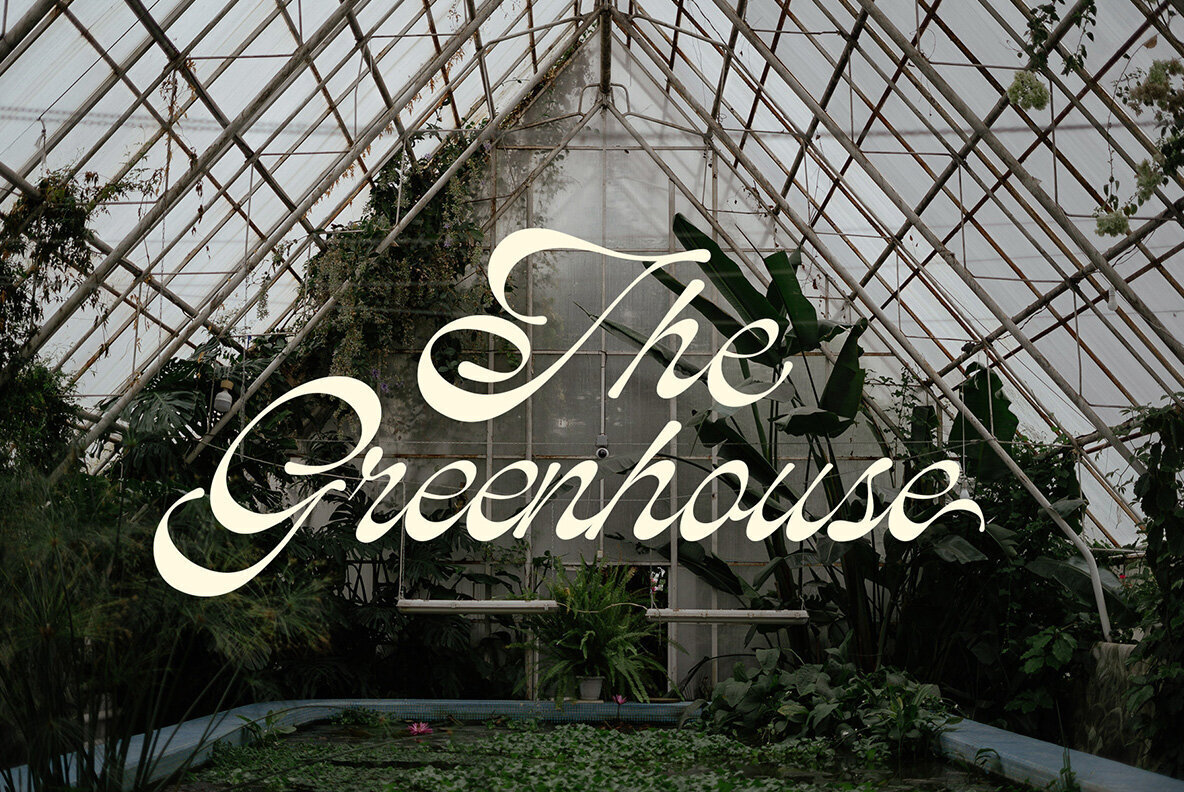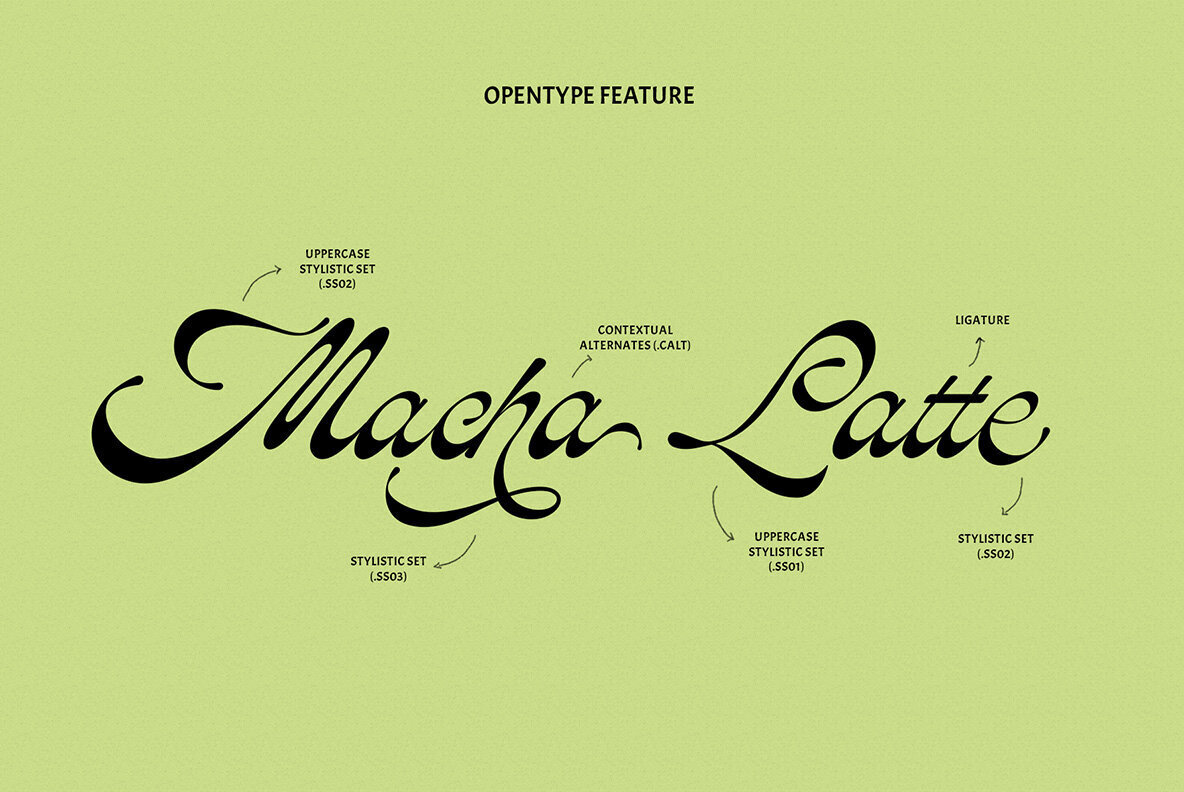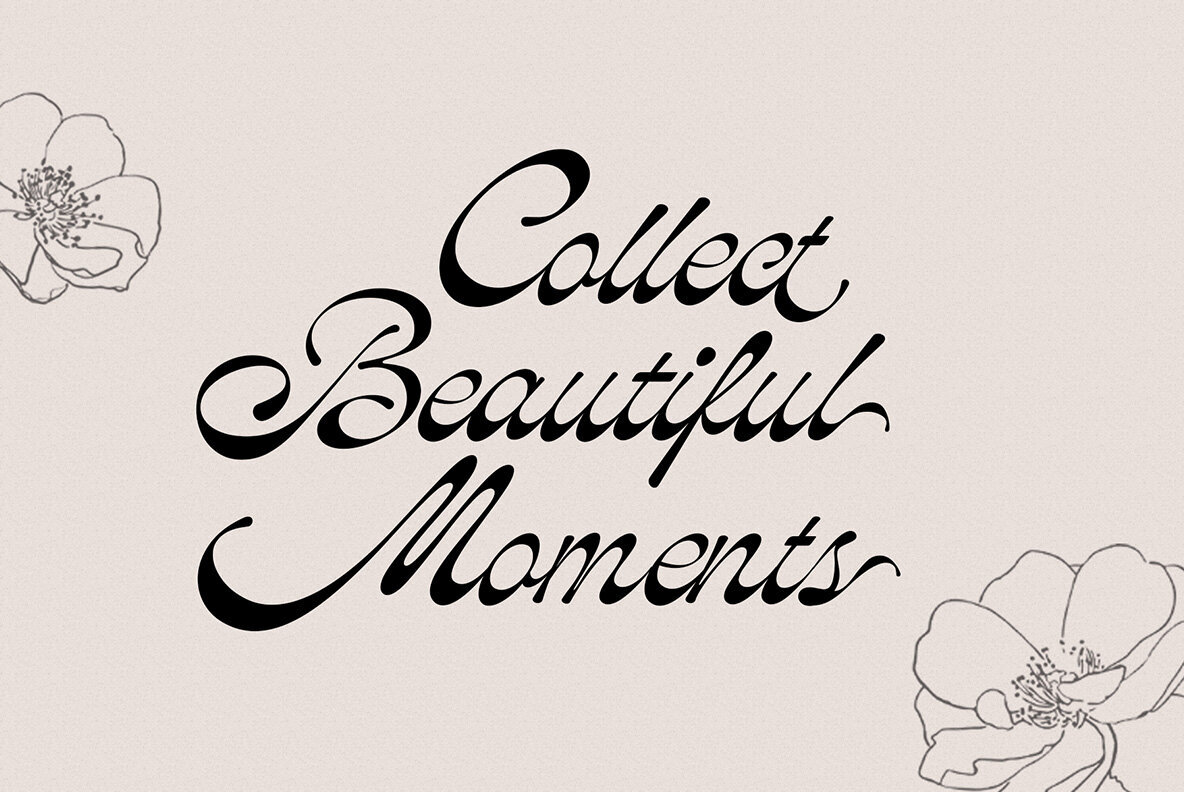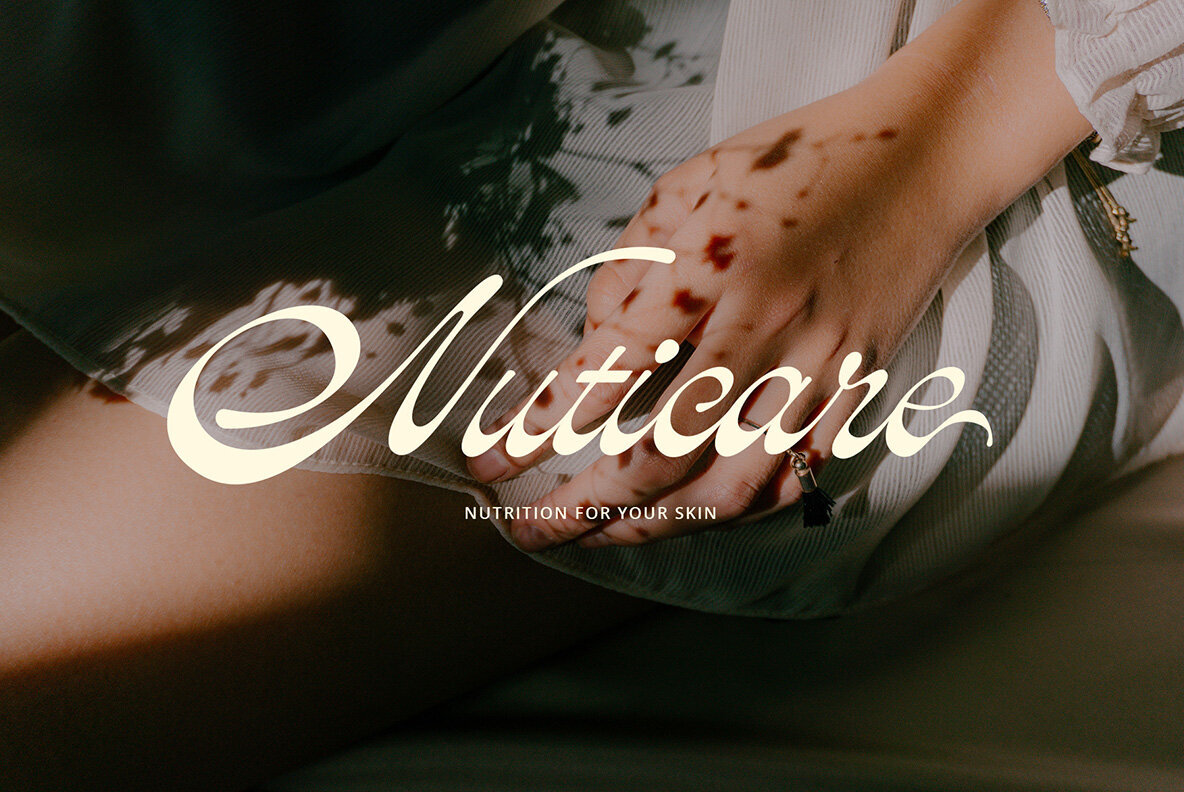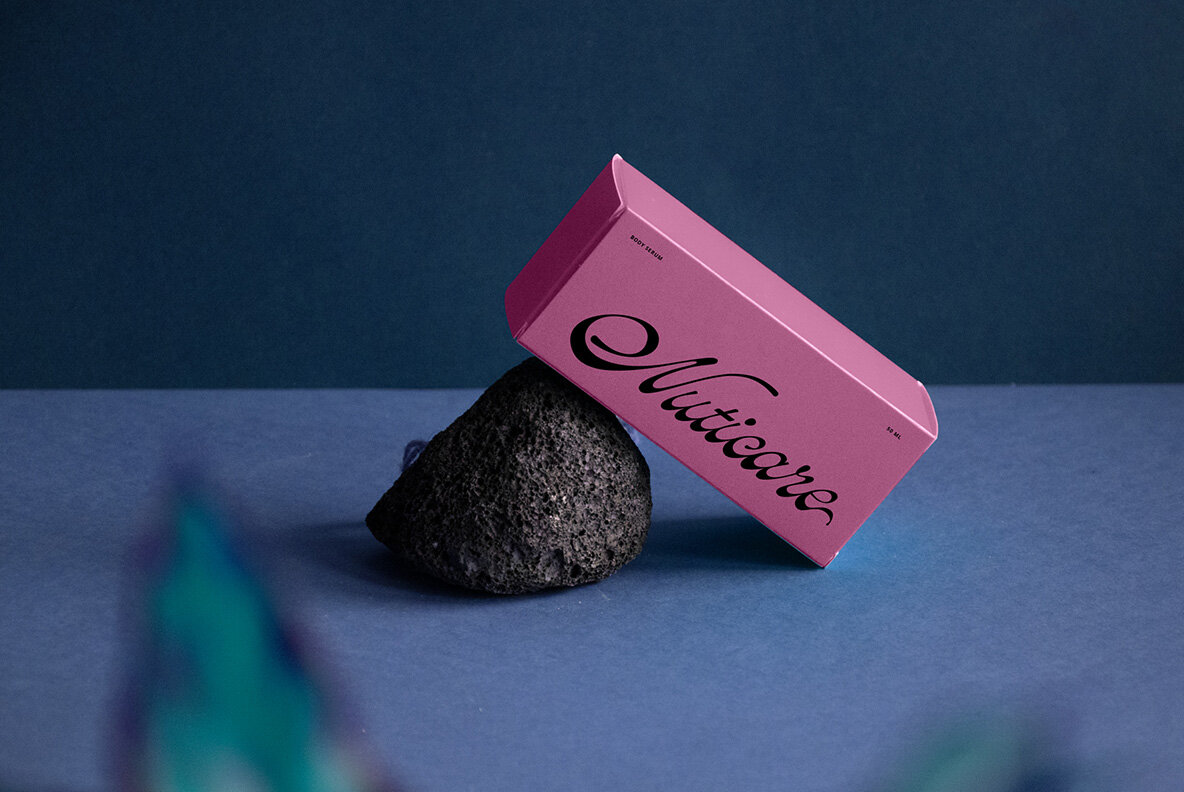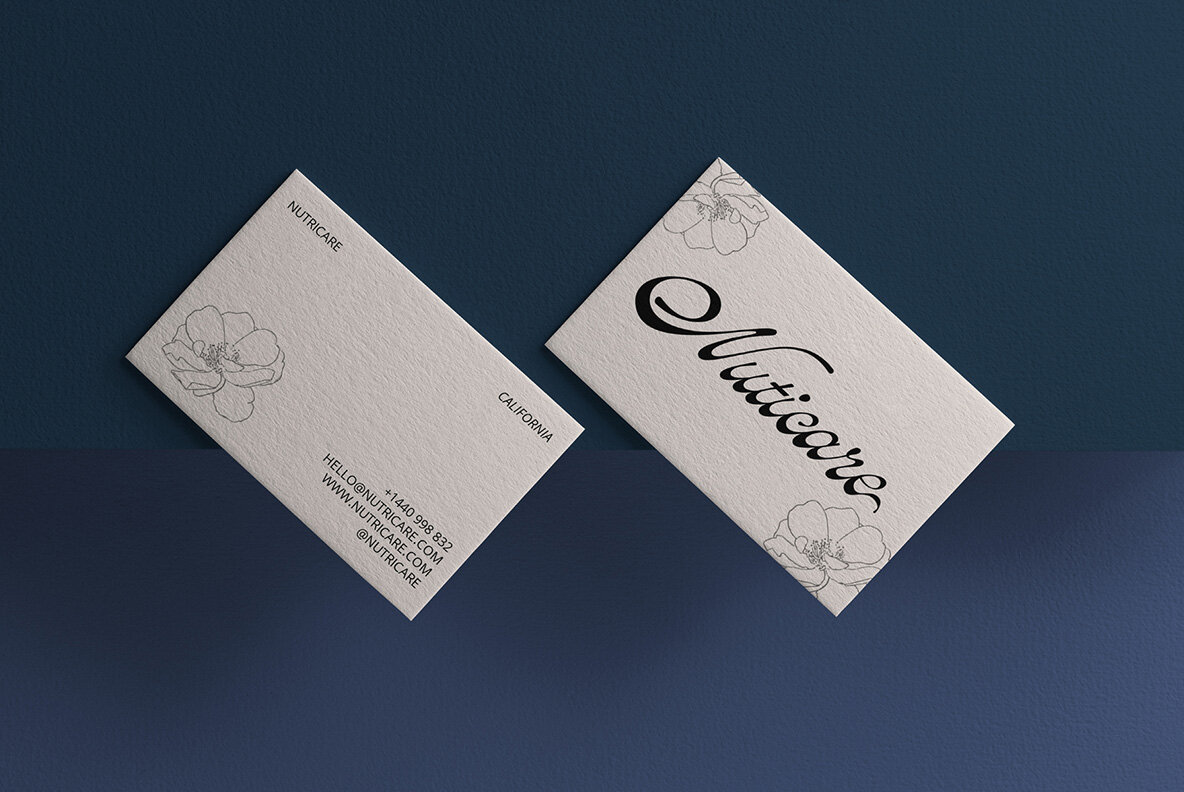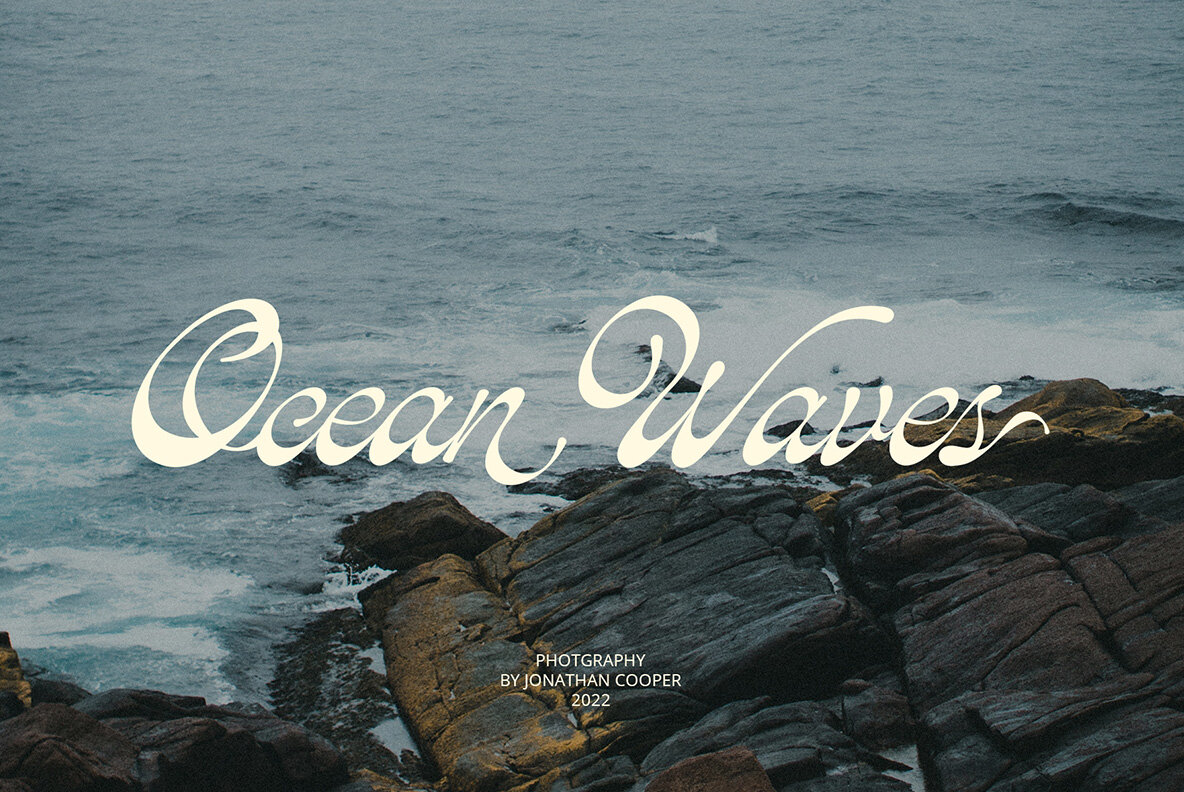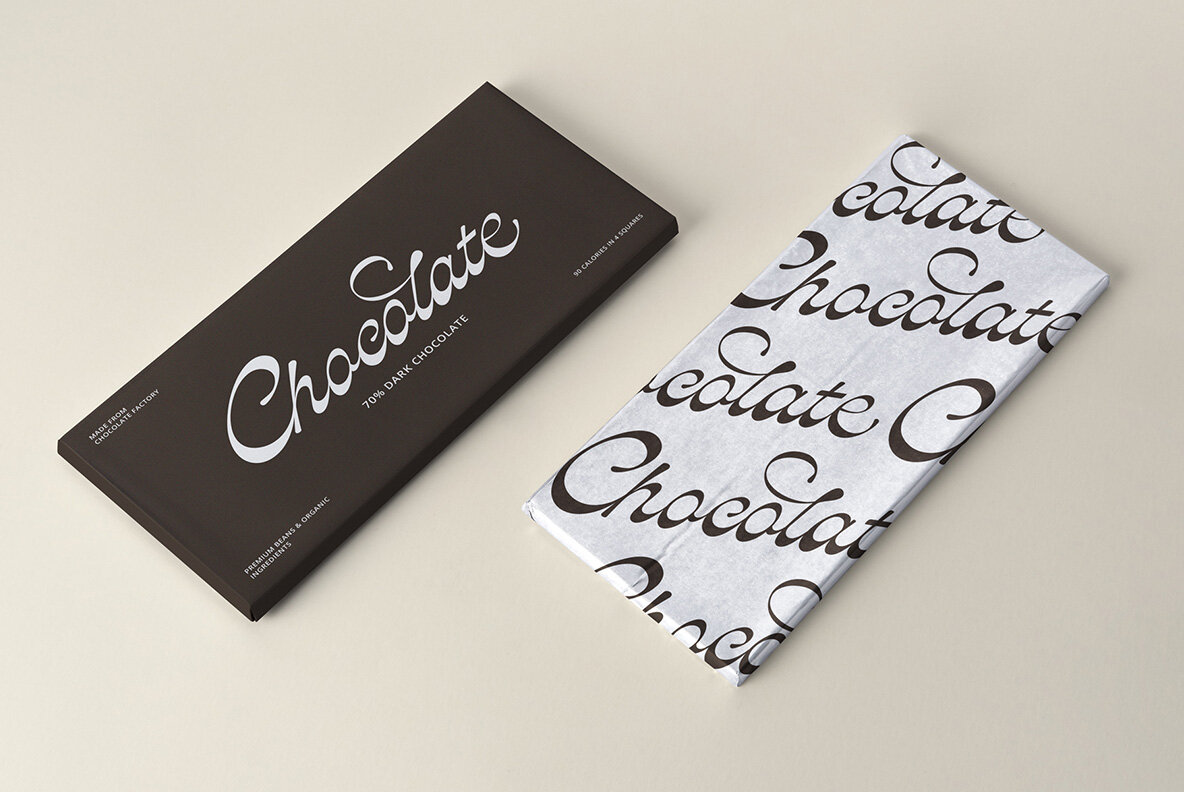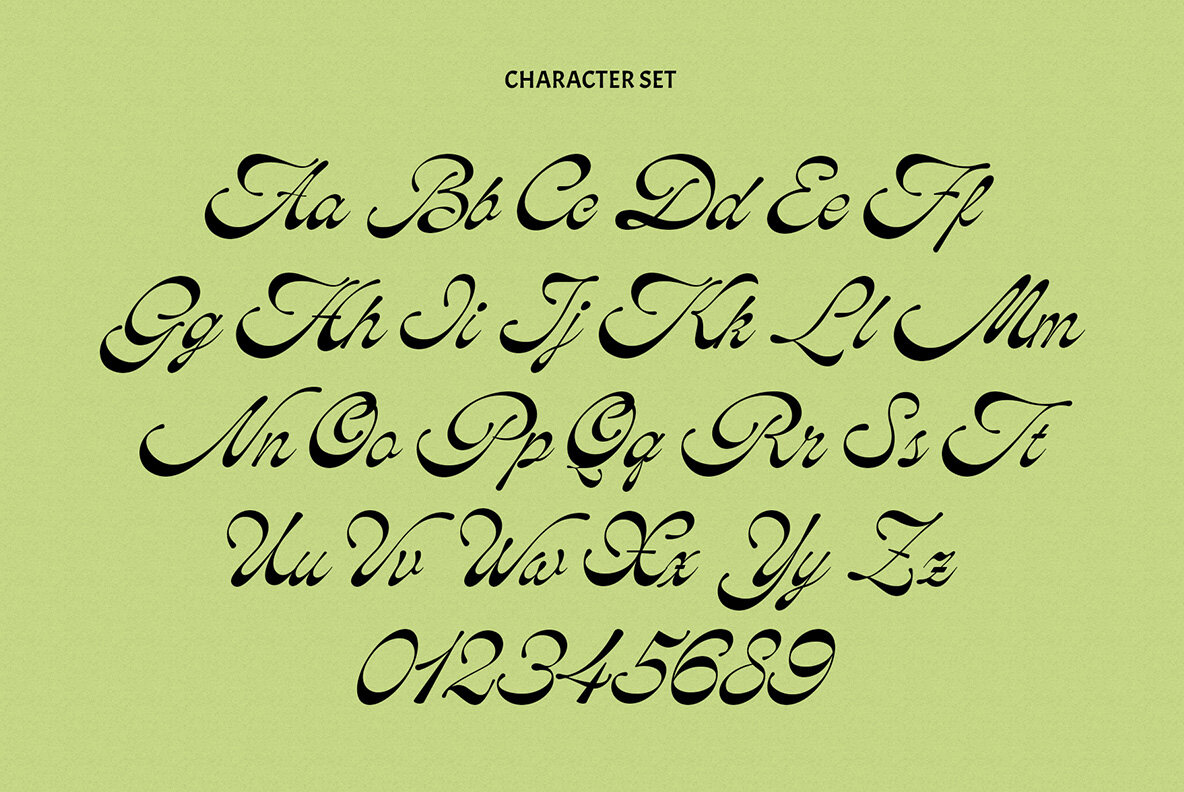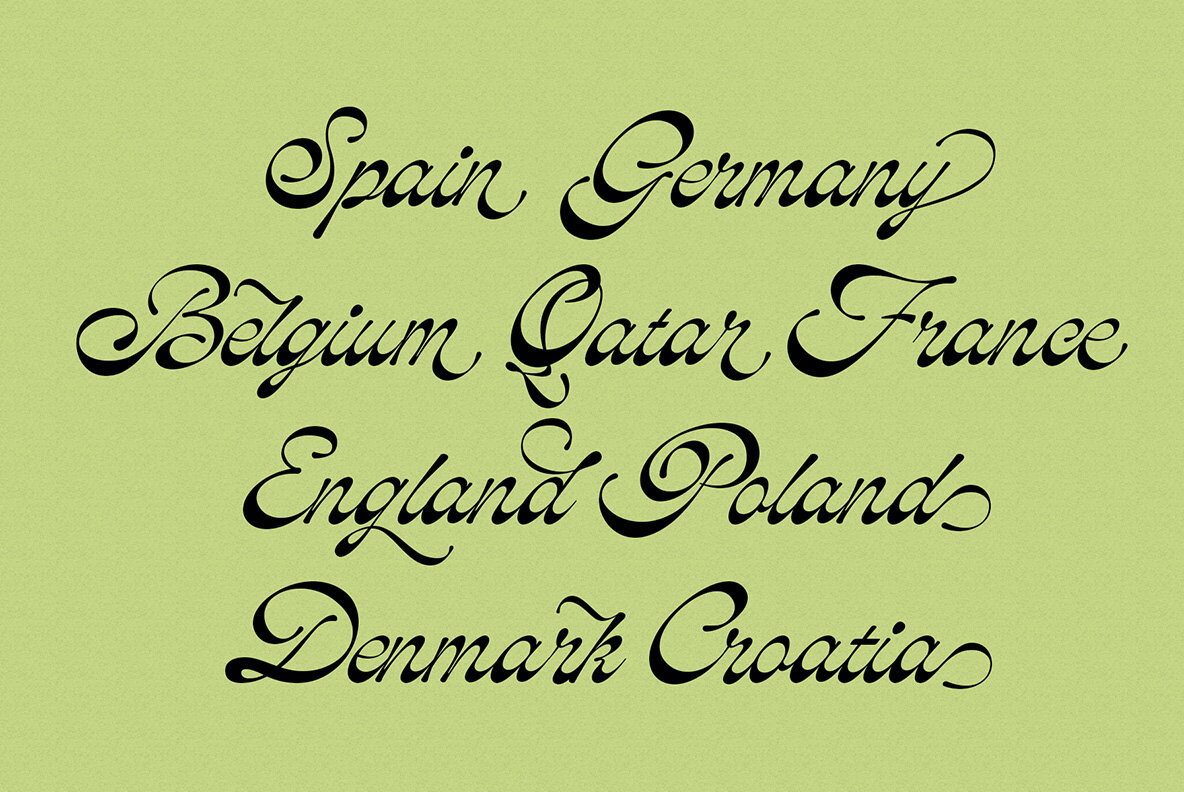
ED Mentasta Font
ED Mentasta Regular
ED Mentasta is a classic script font with rounded edges and a modern and unique look. This font is also equipped with 90+ stylistic sets, Contextual Alternative, ligatures and also multi-language support which further adds to the creativity in using this font.